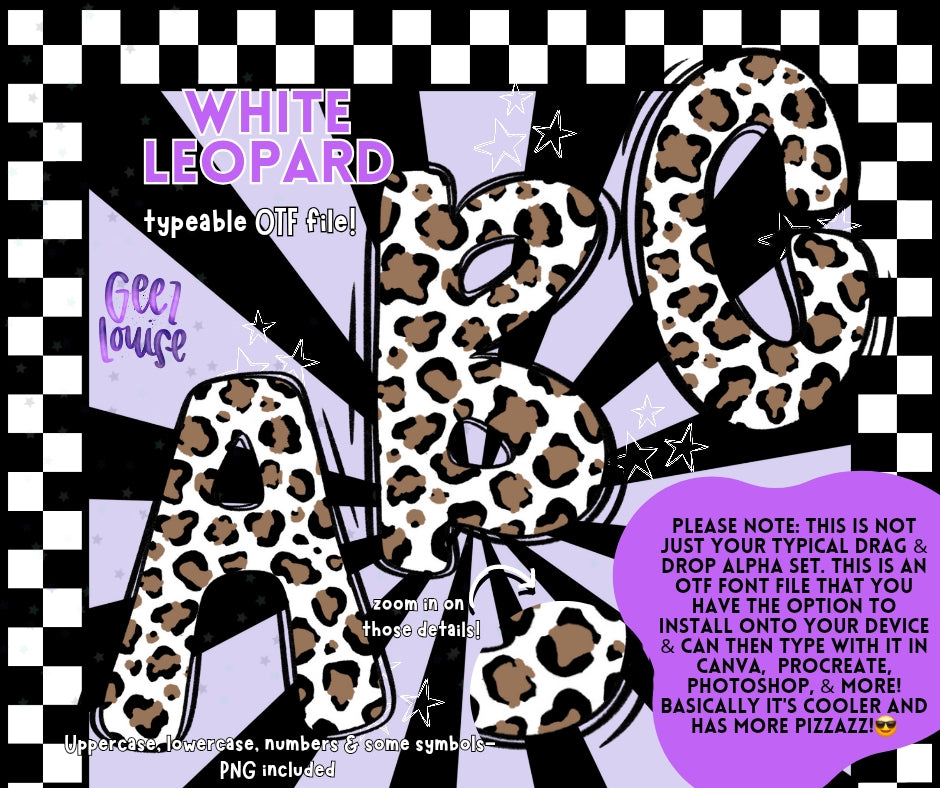
White leopard - TYPEABLE OTF Font - Alpha Set - Digital Download- PNG
White Leopard OTF Alpha – Typeable Font & PNG Files 🌈✨
Brighten up your designs with this White leopard OTF Alpha Set! This is NOT just your typical drag-and-drop alpha – it’s a fully typeable OTF font that you can install on your device and use in Canva, Procreate, Photoshop, and more! Plus, PNG files are included for added flexibility.
✔ Bold, Leopard spots – Adds vibrant energy to your projects
✔ High-quality details – Zoom in and see the crisp design
🔥 Upgrade your design game with the White leopard Alpha! 🔥